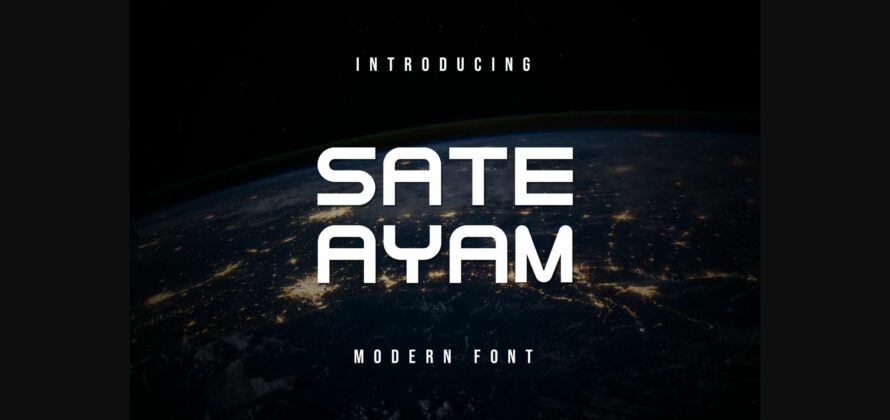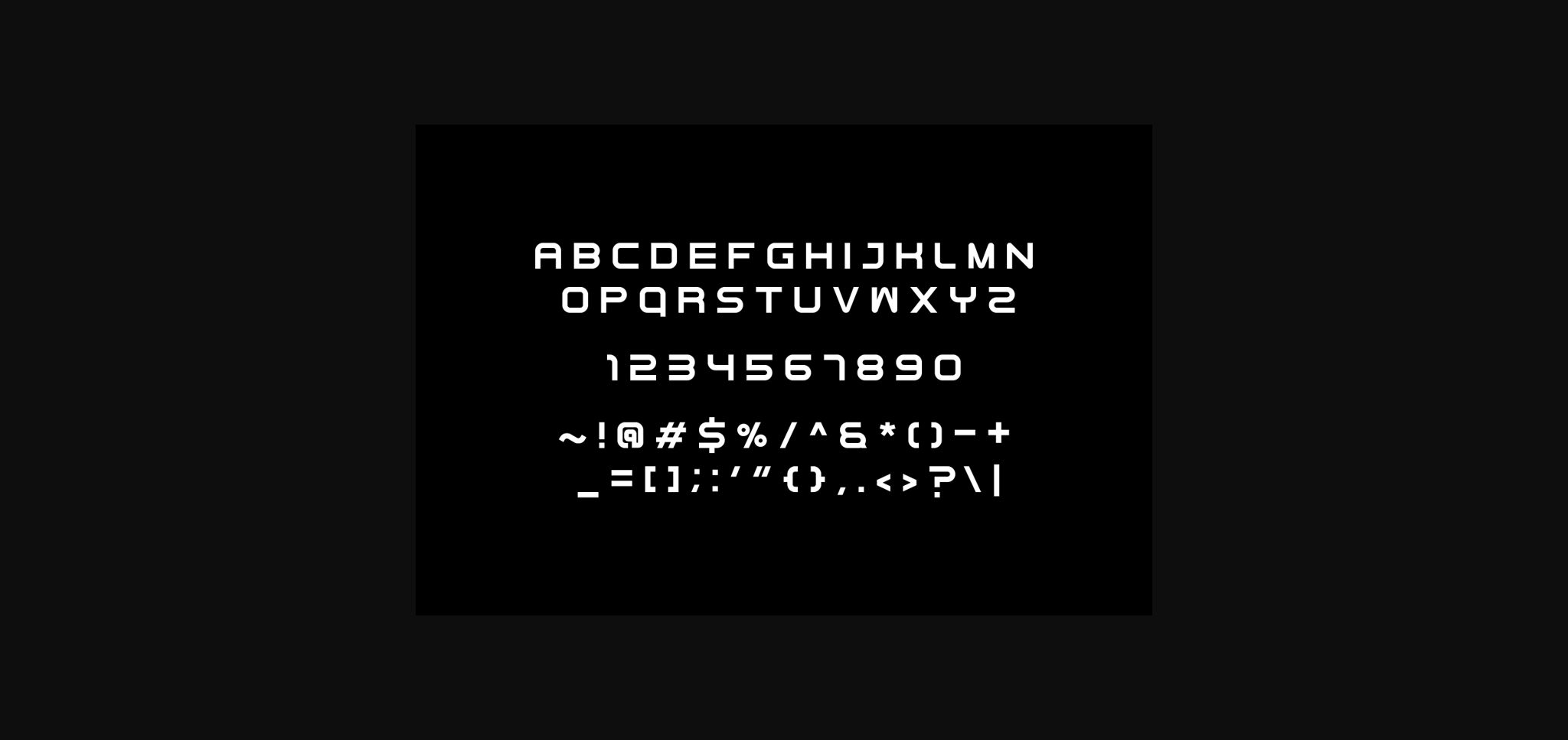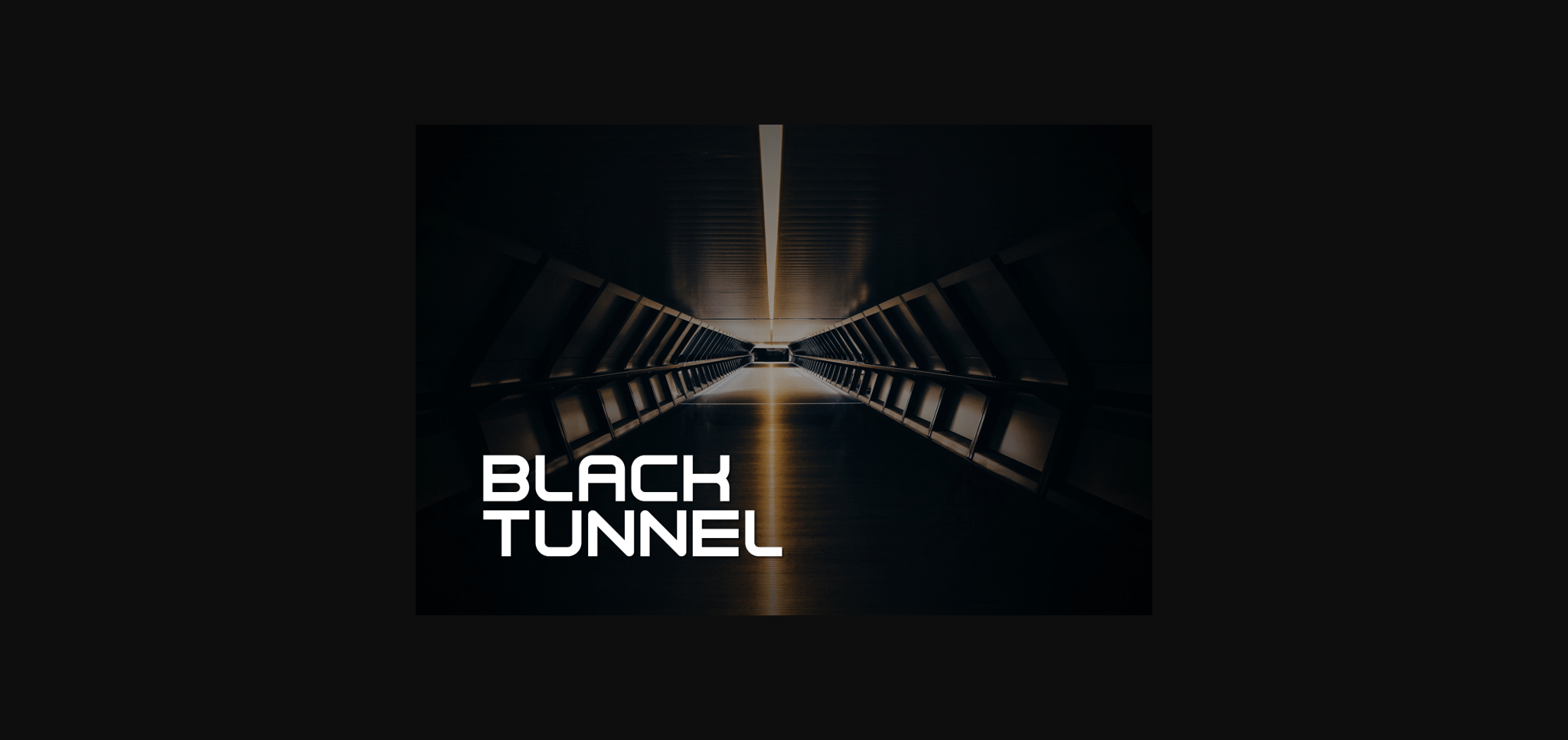
Sate Ayam Font
About Sate Ayam Font
Sate Ayam is a modern and cool sans serif font. Strong and assertive, this typeface will be suitable for a wide spectrum of applications.